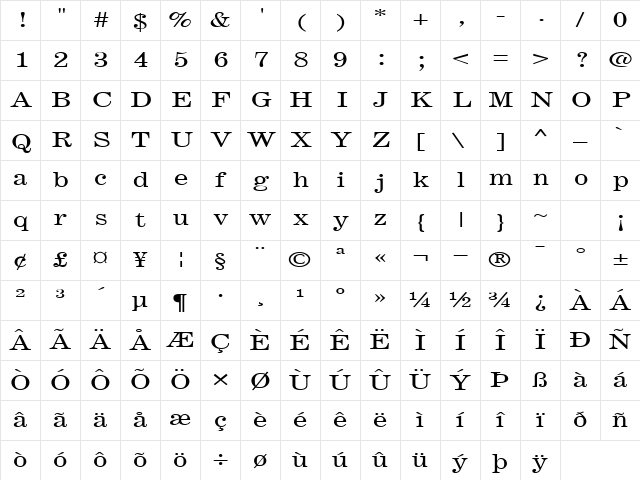
Fast Regular
Fast Family
Fast Regular
Design Context for Fast
Fast is a composed and adaptable typeface that performs quietly and consistently across a wide range of design contexts.